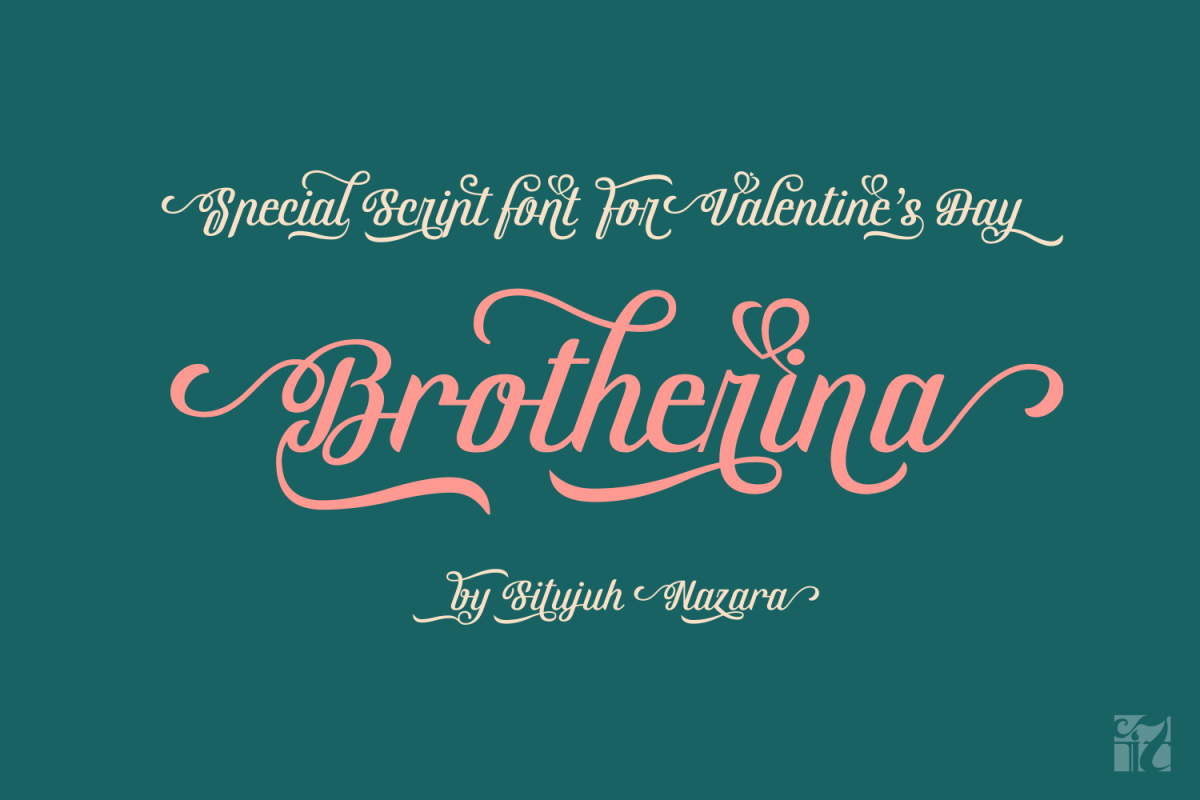
Brothernia
Brotherina
Brotherina font is a clear and unique script font, looks lovely for display and text. Brotherina is an Open Type Font, It has alternatives of stylistic sets, that enable the user to choose the style of each character in the text.